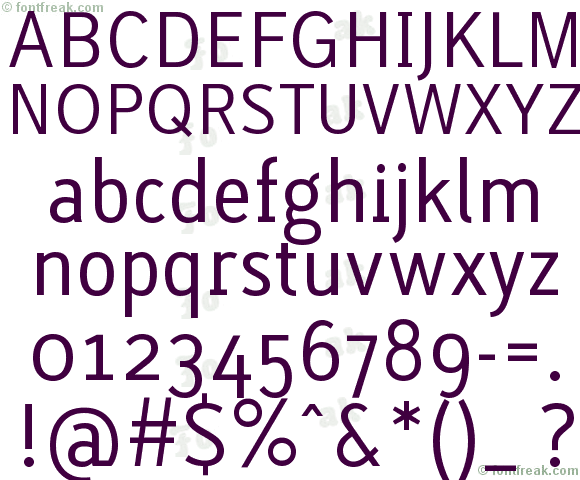
Lacuna Regular
About Lacuna Regular
Lacuna Regular is a captivating sans-serif typeface designed by Glashaus Design in 2001, created by Peter Hoffmann. This font is characterized by its clean lines and contemporary aesthetic, making it an ideal choice for a variety of design projects. The stroke weight features a balanced consistency, offering a modern appearance without sacrificing readability. The letterforms exhibit minimal contrast, contributing to a sleek and cohesive look, while the spacing is thoughtfully designed to enhance legibility across different mediums.
This versatile font shines in multiple applications, including branding projects, restaurant menus, and event flyers. Its straightforward yet stylish nature makes it perfect for small business owners looking to convey professionalism and approachability. Additionally, Lacuna Regular is an excellent choice for graphic designers crafting promotional materials or content creators developing engaging social media graphics. Wedding invitations and personal stationery also benefit from the font's elegant simplicity, making it suitable for both formal and casual themes.
What sets Lacuna Regular apart is its ability to blend functionality with aesthetic appeal. Its contemporary design ensures that it remains relevant in an ever-evolving design landscape, while its clean, sans-serif style makes it adaptable for various uses. Whether you’re looking for a font to represent your brand or enhance your creative projects, the Lacuna Regular font free download provides an accessible and stylish option that is sure to impress.